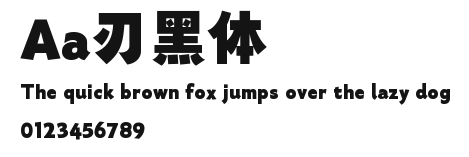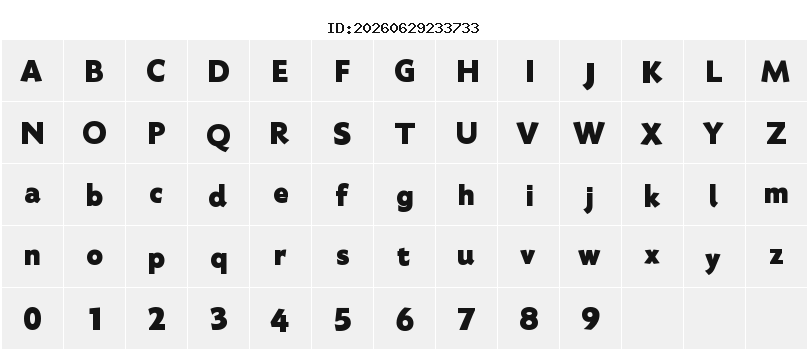
Aa刃黑体 Preview
• Font Name: Aa刃黑体
• Font Style: 常规
• Full Font Name: Aa刃黑体
• PostScript Name: AaRHT
• Designer: Aa
• Manufacturer: 翰美互通(厦门)科技有限公司
• Description: AaRHT is a fantastic font with excellent features designed for user interfaces and electronic communications.
About Aa刃黑体.ttf
Aa刃黑体.ttf is a modern, elegant sans-serif font designed for ultimate readability and visual harmony. Perfect for branding, headlines, web design, and print materials.